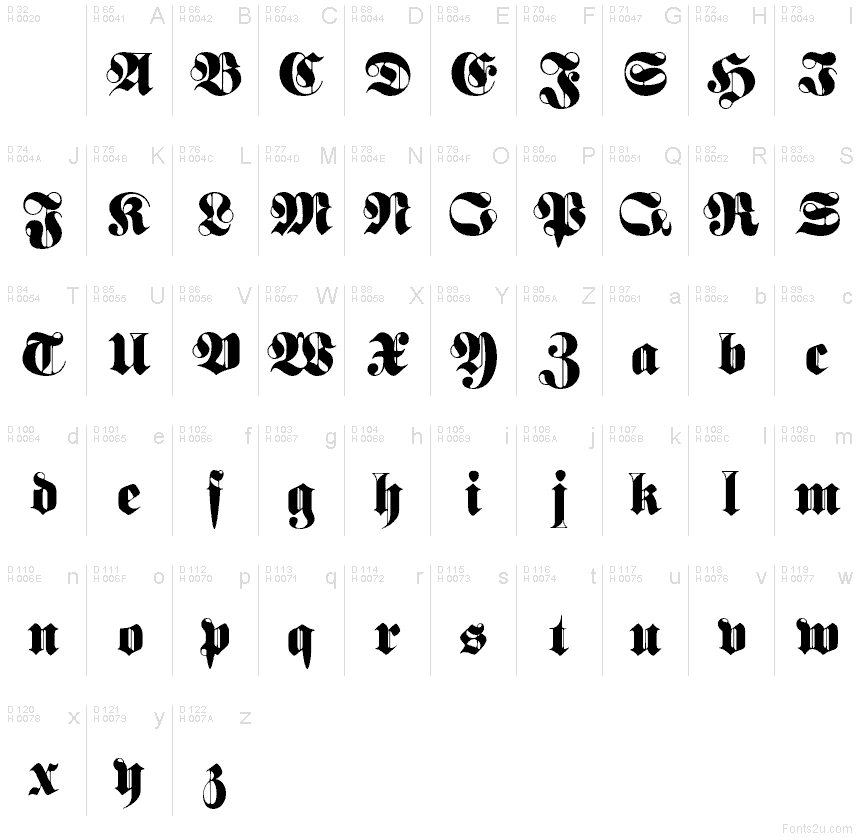
CS Chalise Drawn font is a bold gothic font featuring a medieval style by Craft Supply Co. The vintage-looking letters have high-contrast elements, finishing, and various angles that make them unique. Other features of the font include legibility and an excellent luxurious appeal.
Use it in your historic logos, labels, restaurant menus, book titles and cover designs, posters, cards invitations typography ideas, magazine/newspaper headings, and more.